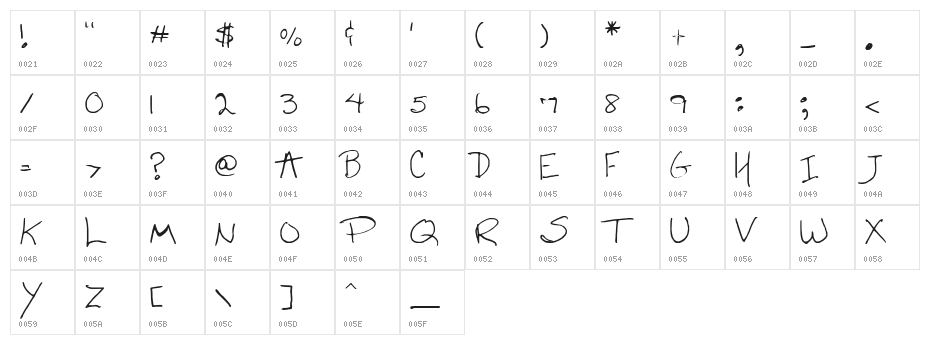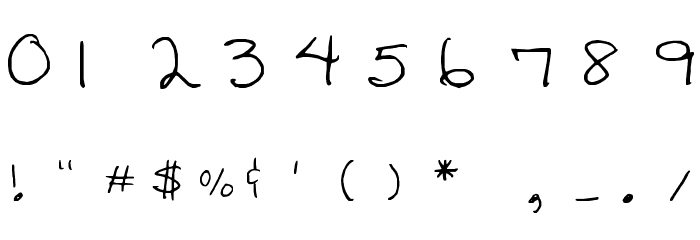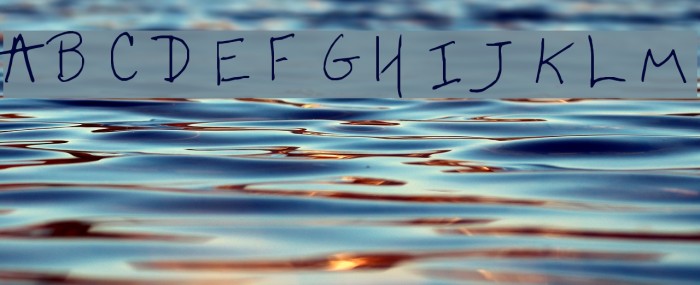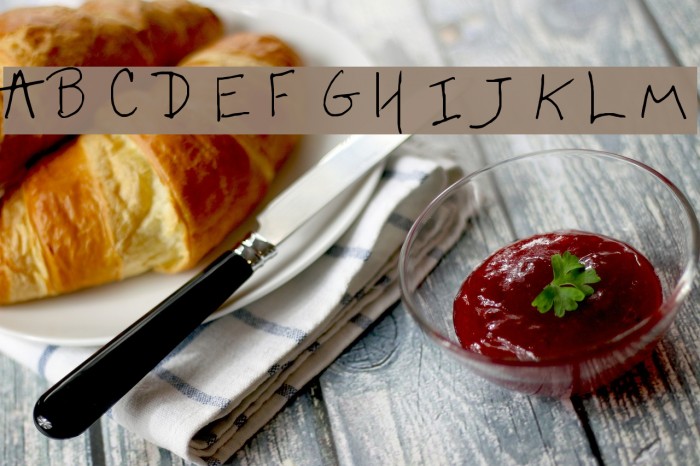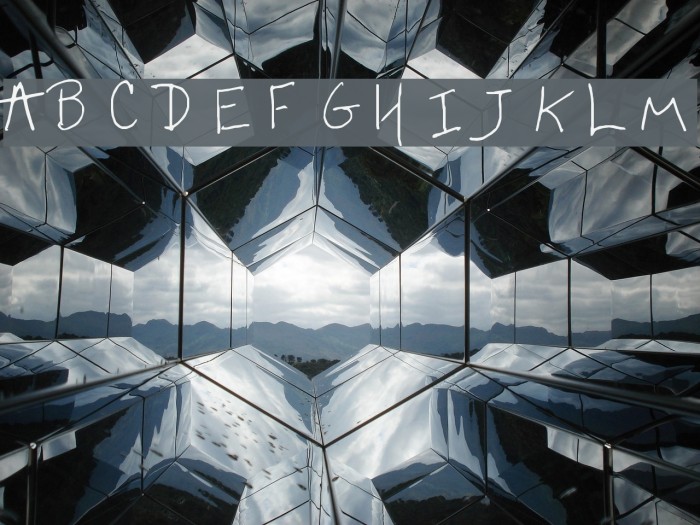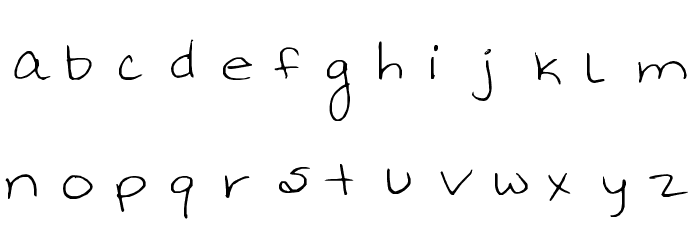
shellie Font
shellie Description
This font embodies a casual, handwritten style that exudes a sense of informality and approachability. Each character is crafted with a slightly uneven stroke, mimicking the natural flow of handwriting. The uppercase letters maintain a consistent height, while the lowercase letters vary slightly, adding to the organic feel. The numerals are clear and legible, matching the playful aesthetic of the alphabet. Special characters are included, maintaining the same whimsical style. This font is perfect for projects that require a personal touch, such as invitations, greeting cards, or casual branding.
| Overall Style | Casual, Playful |
| Use Case | Headlines, Informal text, Personal projects |
| Proposed Projects | Ideal for invitations, greeting cards, personal branding, and informal communications. |